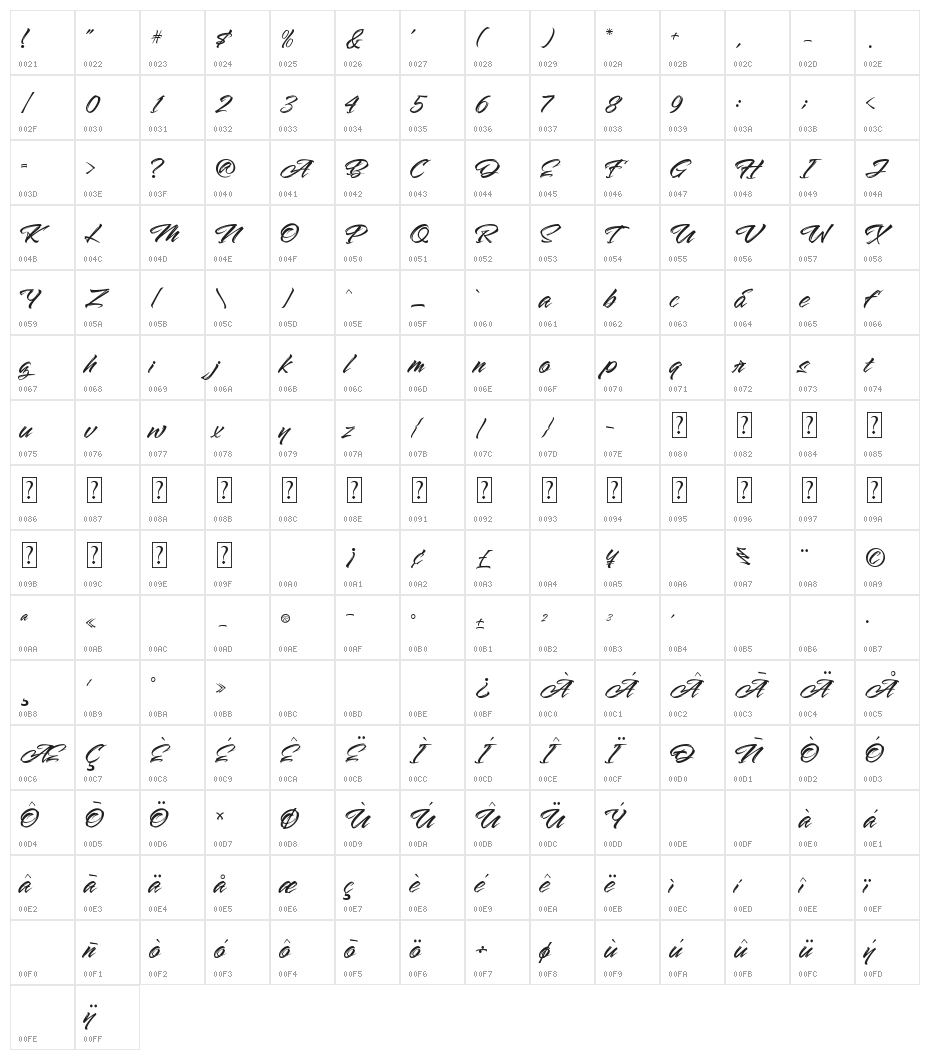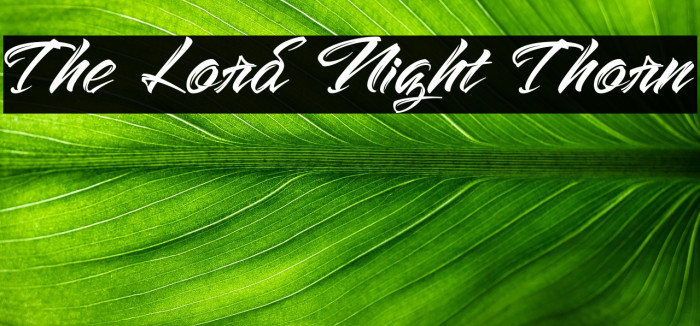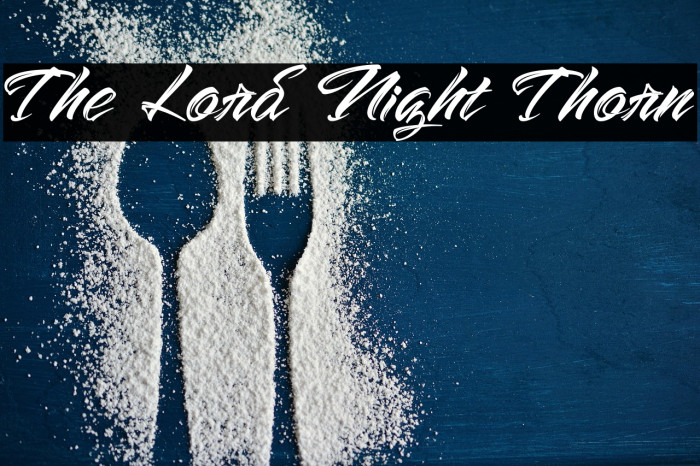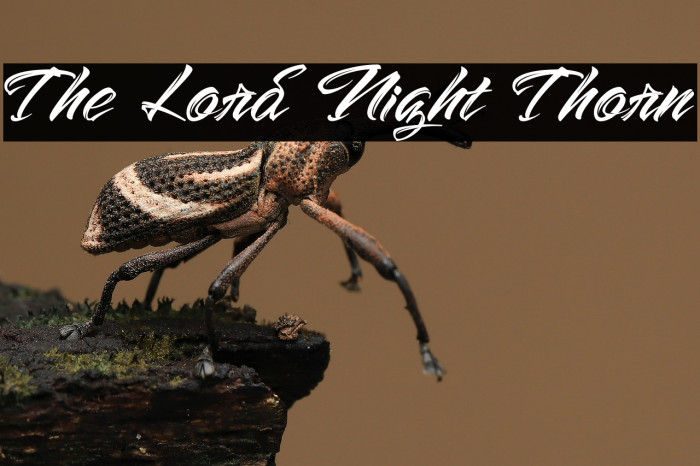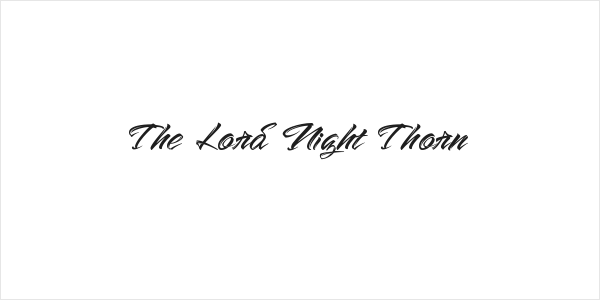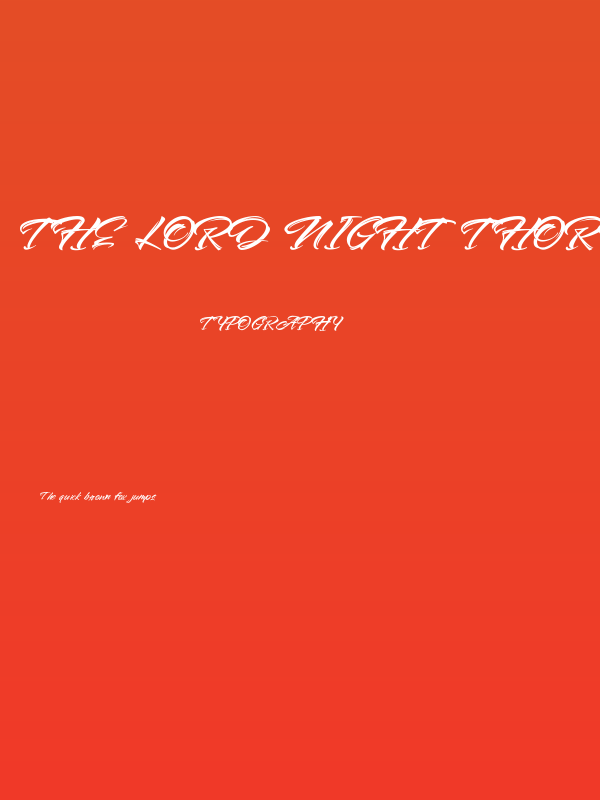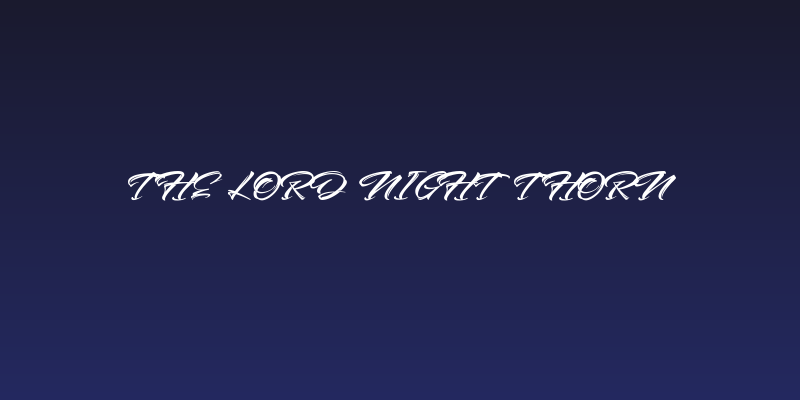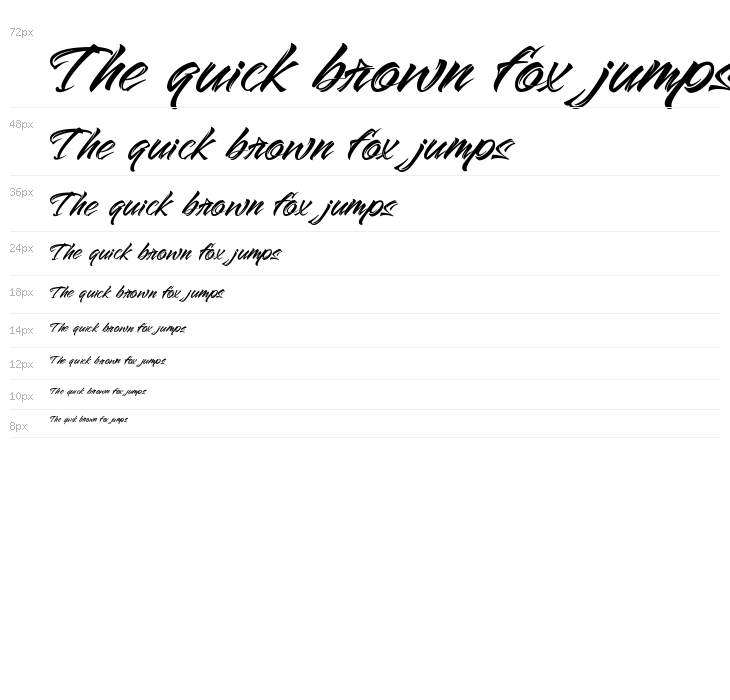
The Lord Night Thorn Font
The Lord Night Thorn Description
This font features a bold, cursive style with dramatic flourishes and a distinct handwritten appearance. The uppercase letters are characterized by sweeping curves and elegant loops, while the lowercase letters maintain a consistent flow with slightly exaggerated ascenders and descenders. The numerals are equally stylized, offering a cohesive look across all characters. Special characters are designed to match the overall aesthetic, making this font suitable for creative and artistic projects. The strokes are thick, providing a strong presence and high contrast, which enhances readability despite its decorative nature.
| Use Case | Logos, Invitations, Artistic designs |
| Proposed Projects | Ideal for invitations, branding, logos, and artistic designs that require a touch of elegance and flair. |